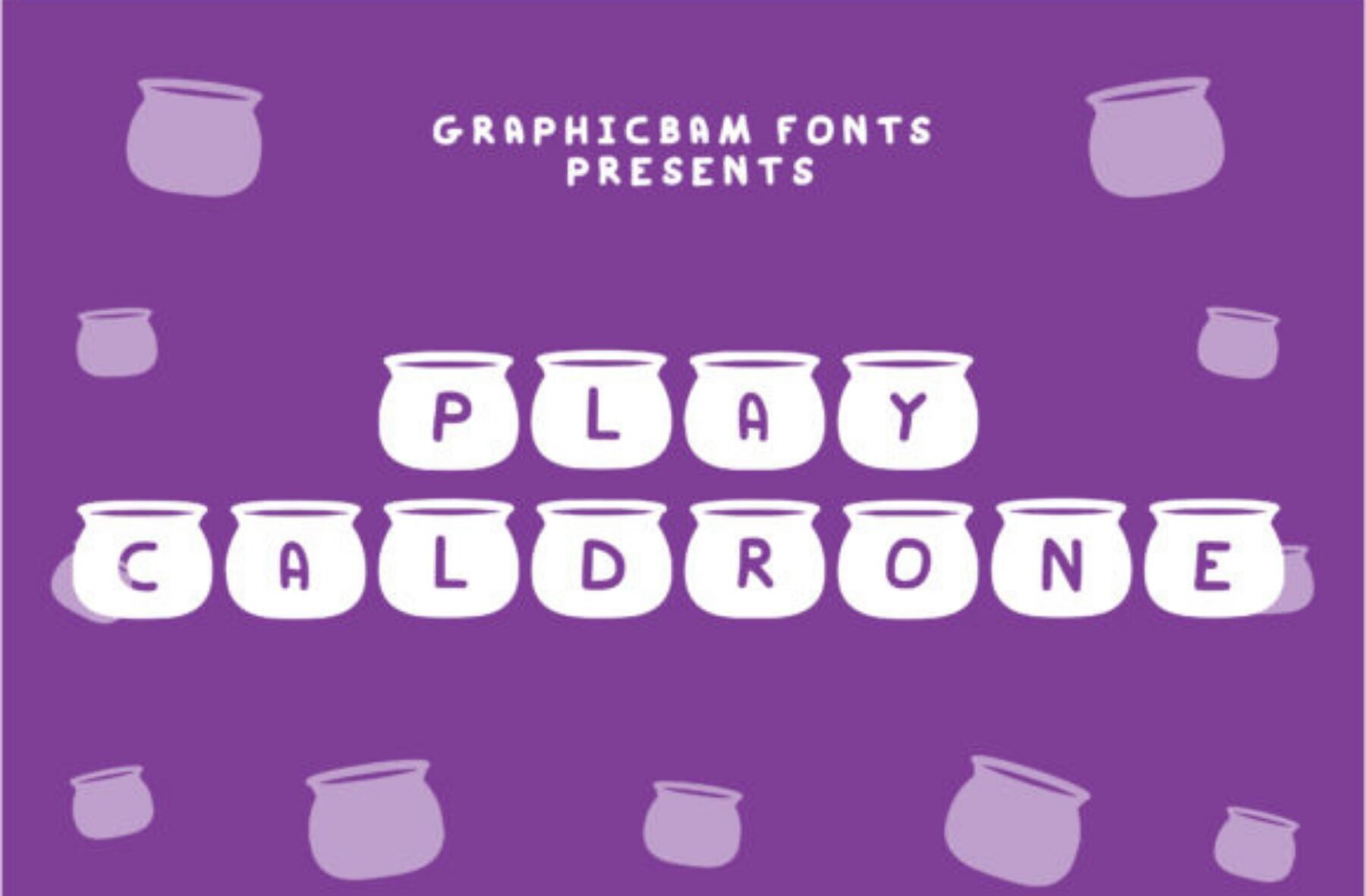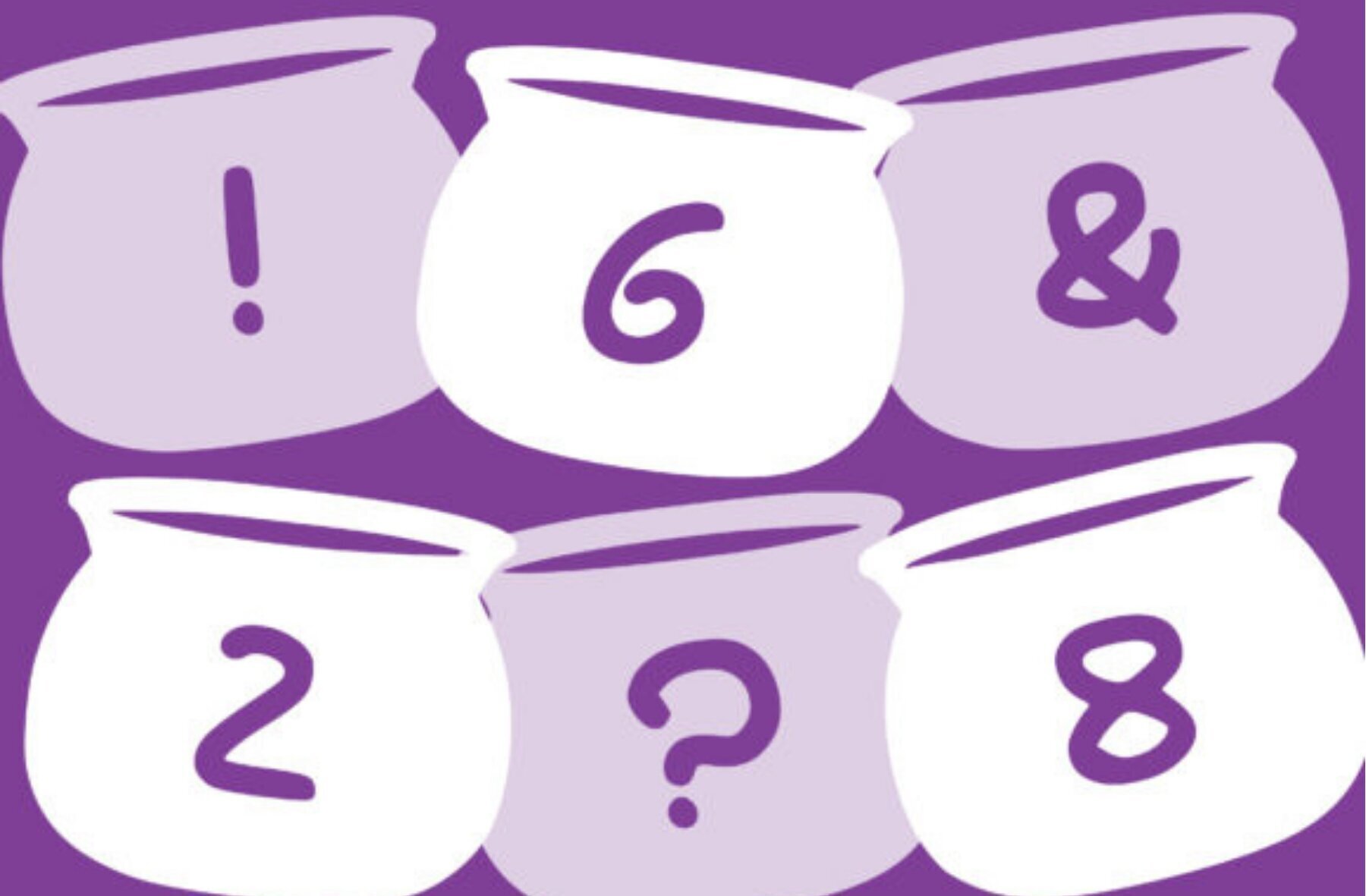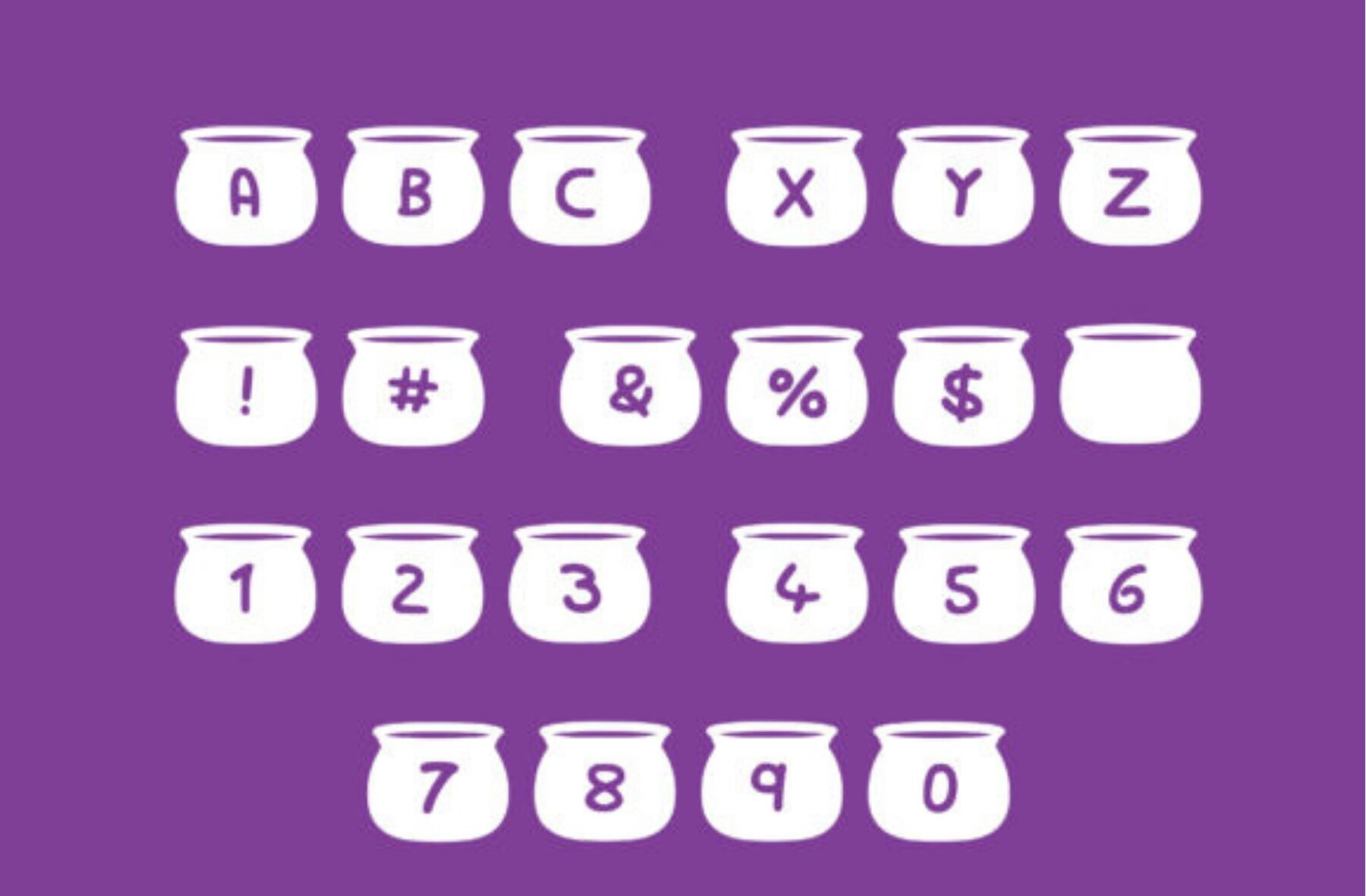
Play Caldrone Font
Play Caldrone Regular
Introducing Play Caldrone, a captivating decorative font that adds a whimsical touch to your creative projects. With its distinctive caldron design on each character, this font is ideal for adding a playful element to a variety of applications. From crafts and digital design to presentations and greeting cards, Play Caldrone stands out as the perfect choice to infuse your work with originality.Play Caldrone: A Unique Decorative Font